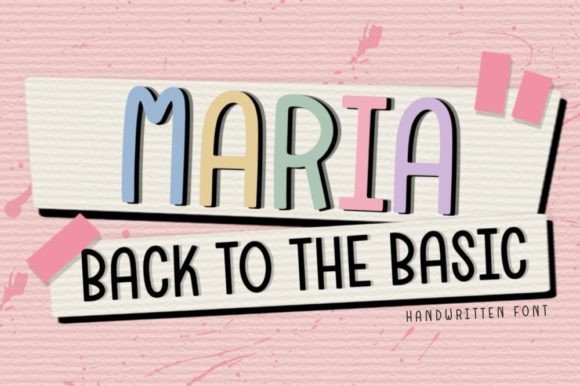
Introducing Maria Font, the epitome of charm and playfulness in the world of typography. Its delicate strokes and whimsical curves evoke a sense of carefree innocence, making it the perfect choice for adding a touch of sweetness to your creative projects.
Maria Font isn't just a font; it's an expression of your individuality, a reflection of your playful spirit. Let your imagination soar as you effortlessly craft designs that exude charm and delight.
With Maria Font by your side, you'll never run out of ways to express yourself. Whether you're creating heartfelt greeting cards, designing eye-catching posters, or personalizing your digital creations, Maria Font will be your trusty companion, adding a touch of magic to every project.
So, embrace the enchanting world of Maria Font, where cuteness reigns supreme. Let your creativity blossom as you explore the endless possibilities that this remarkable font has to offer. Its versatility knows no bounds, making it the ideal choice for crafting designs that capture hearts and leave a lasting impression.